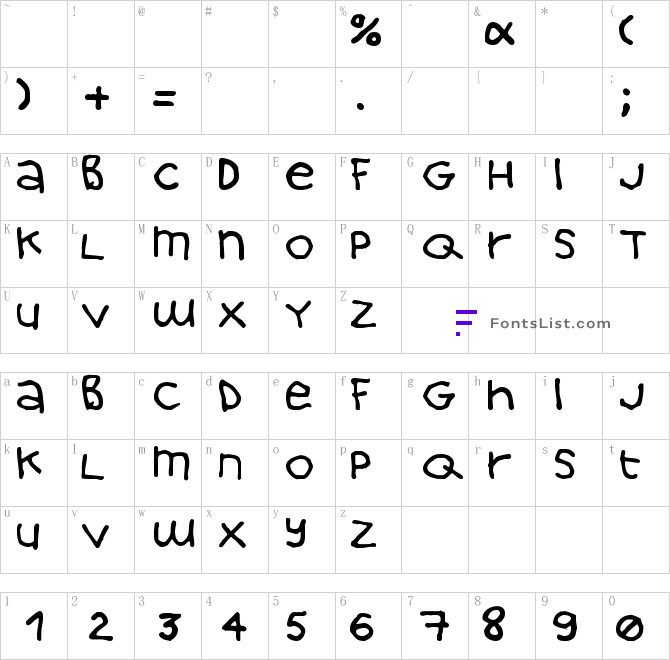
• Font Name:April 16
• Subfamily:FabriceDucouret: April 16: 2008
• Full Name:April 16
April-16.ttf is a very beautiful artistic font, April-16.ttf is widely used in the design and printing of various books and pictures,April-16.ttf has a strong visual impact,April-16.ttf is a commonly used font in newspapers, magazines and books, and is used in posters, e-commerce Poster design, store design, logo design, font design and other fields.April-16.